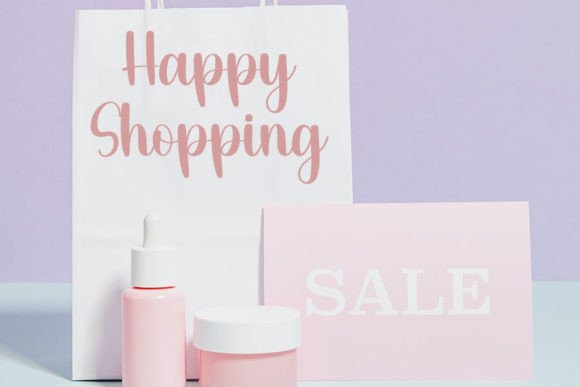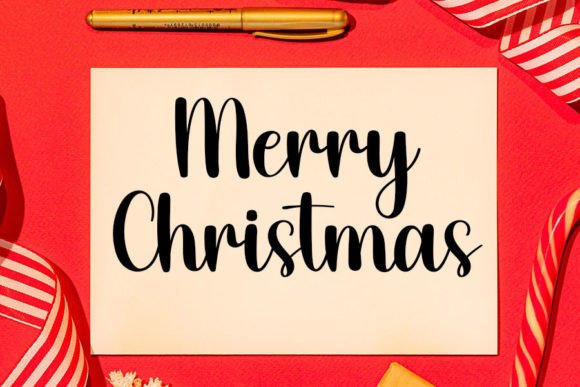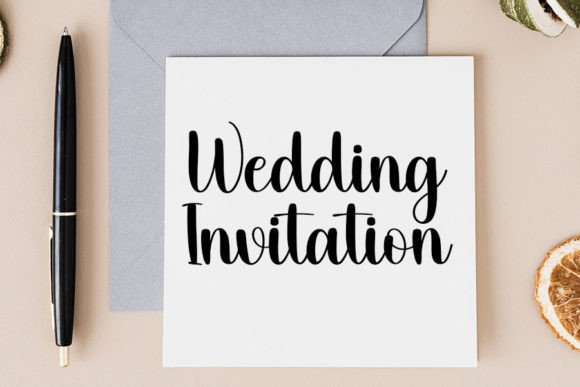
Add Natural Charm with Tiny Font
Tiny Font is a cute and adorable handwritten typeface designed to bring a simple and natural feel to your creative projects. Its versatile style fits a wide range of applications. Whether you’re working on greeting cards, headlines, posters, or social media content, Tiny Font adds warmth and friendliness to your designs.
Its gentle strokes and balanced letterforms create an inviting and relaxed look that enhances any project.
Versatile Uses for Tiny Font
Tiny Font works wonderfully in many creative projects, such as:
Greeting cards and invitations
Headlines and titles for posters and flyers
Social media graphics and digital designs
Branding and logo elements
Personalized stationery and notes
Craft and DIY projects
Thanks to its simple and natural handwritten style, Tiny Font adds charm and approachability to all your creative ideas.
It features balanced kerning and clear spacing to ensure your text remains readable and attractive in all sizes and formats.
Why Designers Choose Tiny Font
Designers and creatives appreciate TinyFont for its simplicity and versatility. It adds a warm and natural touch that elevates any design. Whether you are a professional or a hobbyist, TinyFont helps you create beautiful and memorable typography with ease.
Use TinyFont to bring natural charm and simplicity to your next creative project.